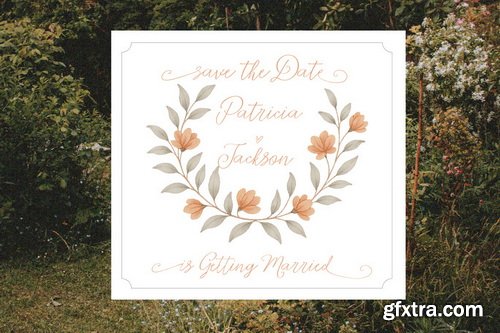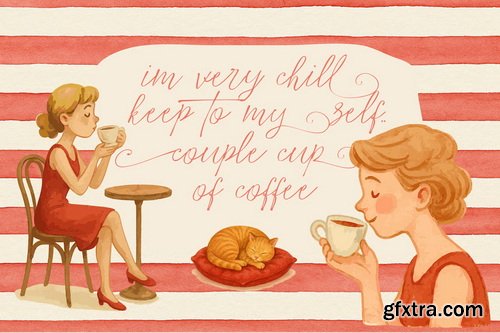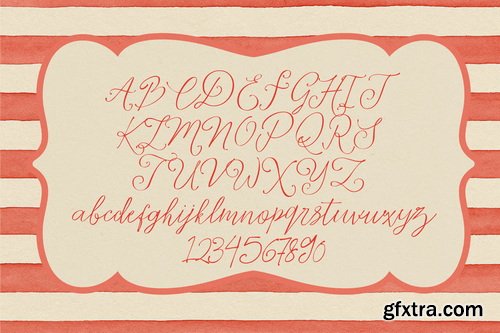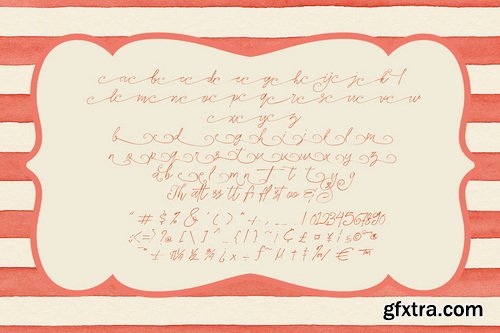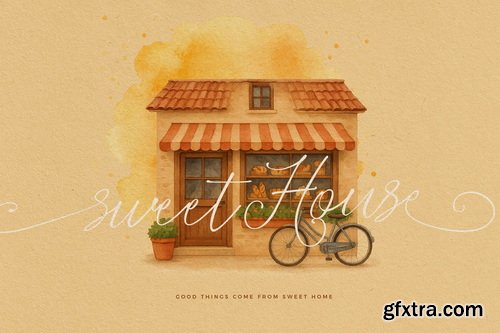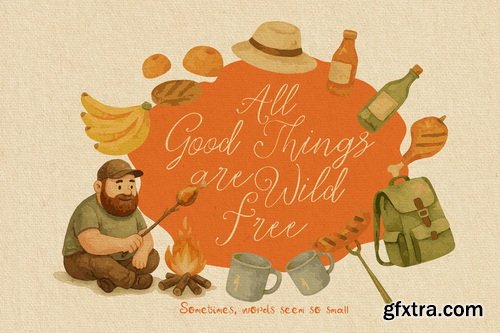
CreativeMarket - Amora Handmade Handwritten Script
- Amora is a handmade handwritten script font designed with a soft, flowing, and elegant touch. Its natural strokes bring a sense of romance and warmth, making it the perfect choice for designs that need a personal and artistic feel. With graceful curves and balanced letterforms, Amora adds a timeless charm and cozy atmosphere to any creative project. Whether paired with a modern serif or a clean sans-serif, Amora will elevate your design with style and personality.